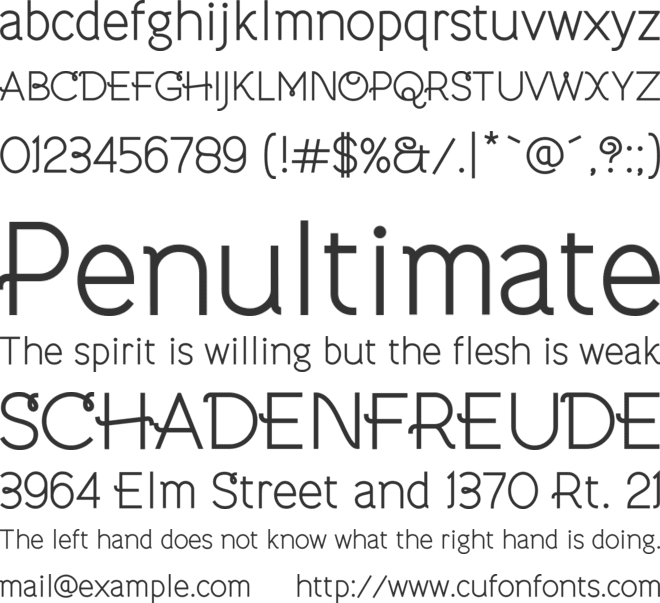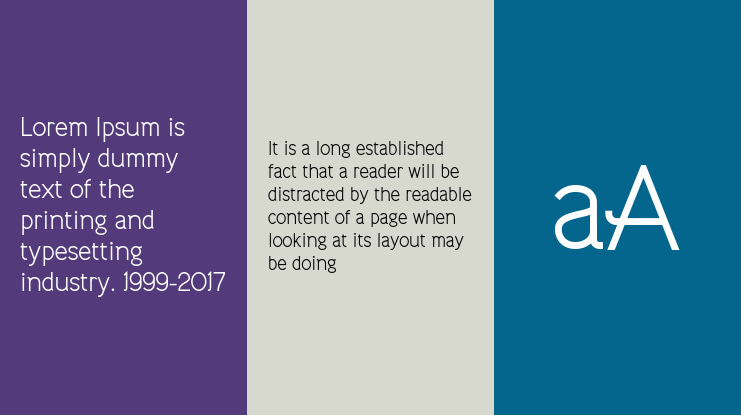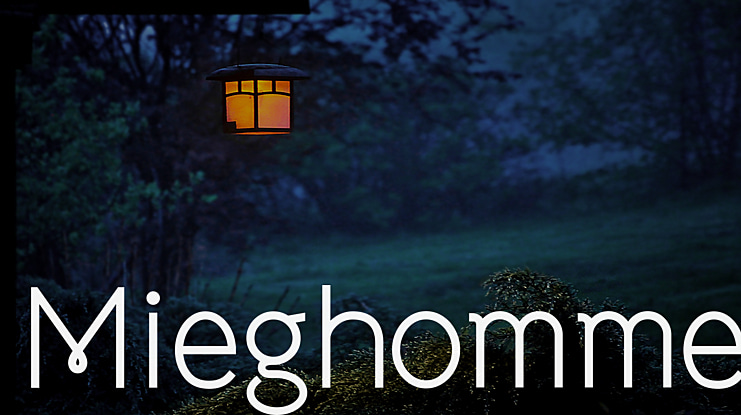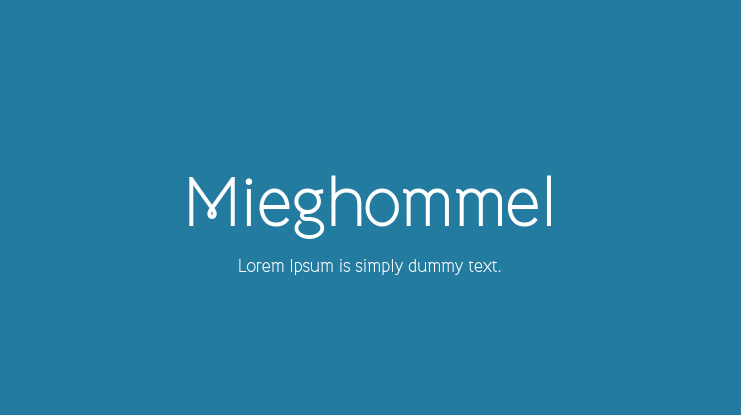
Mieghommel Font
Tup Wanders
A simple sans variation of my base font that has grown some pig's tails here and there. I don't recommend using ALL CAPS, because it's ugly. Kerning might need some work too, I got fed up, sorry. (Mieghommel is the word for ant in my home town Groningen.)
Typeface by Tup Wanders